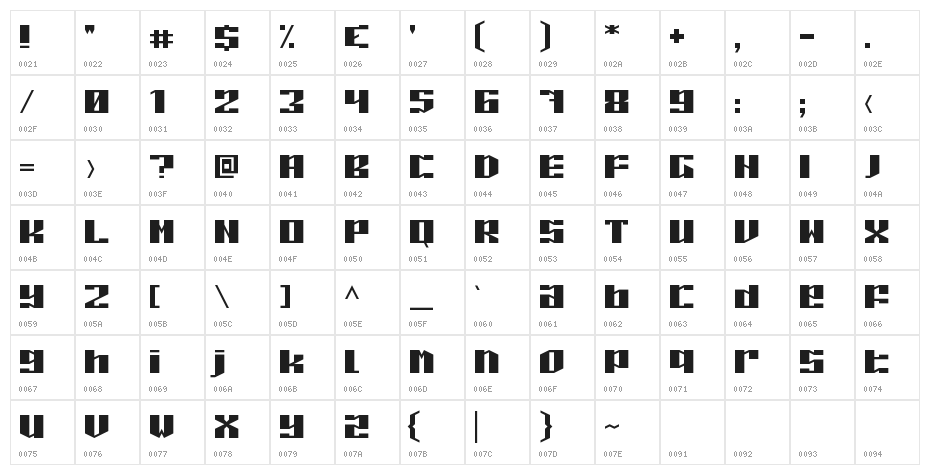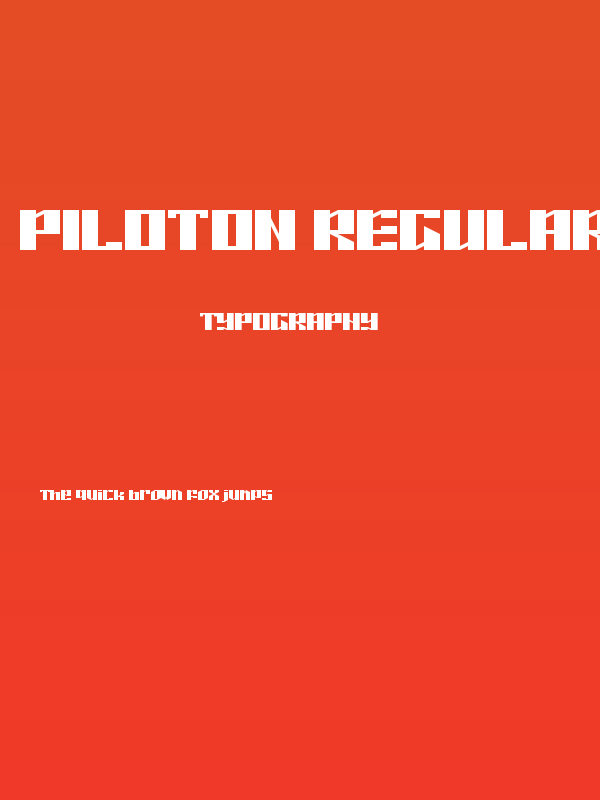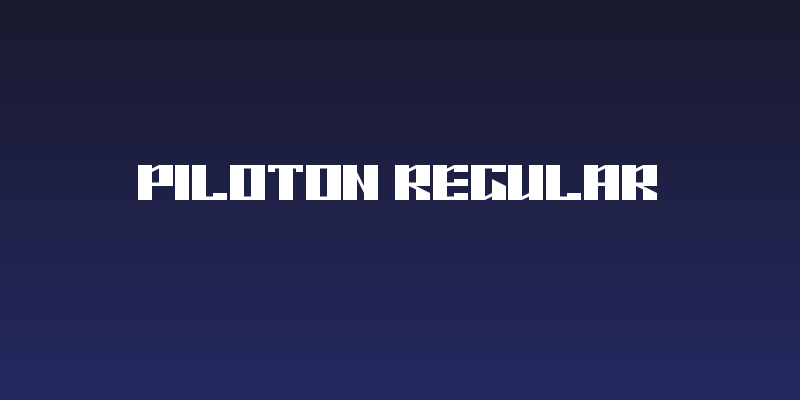
Piloton Regular Font
Piloton Regular Description
This font features a bold, geometric design with sharp angles and a futuristic aesthetic. The characters are constructed with a blocky, stencil-like appearance, giving it a strong and impactful presence. The uppercase and lowercase letters maintain a consistent style, with the lowercase letters slightly more compact. The numerals and special characters follow the same angular and bold design, ensuring uniformity across all glyphs. This font is ideal for projects that require a modern and edgy look, such as technology branding, gaming titles, or sci-fi themed designs.
| Overall Style | Futuristic, Modern |
| Proposed Projects | Ideal for technology branding, gaming titles, sci-fi themes, and modern posters. |